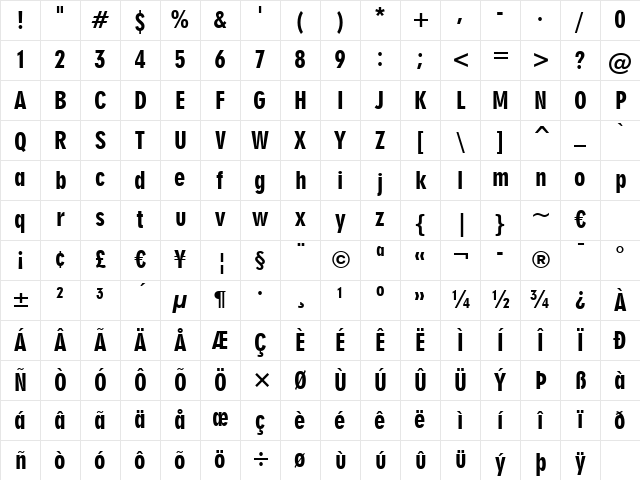
Complete Geometr706 BlkCn BT Black glyph index. Displaying only characters natively supported by Geometr706 BlkCn BT Black font.
Geometr706 BlkCn BT is a composed and adaptable typeface that performs quietly and consistently across a wide range of design contexts.